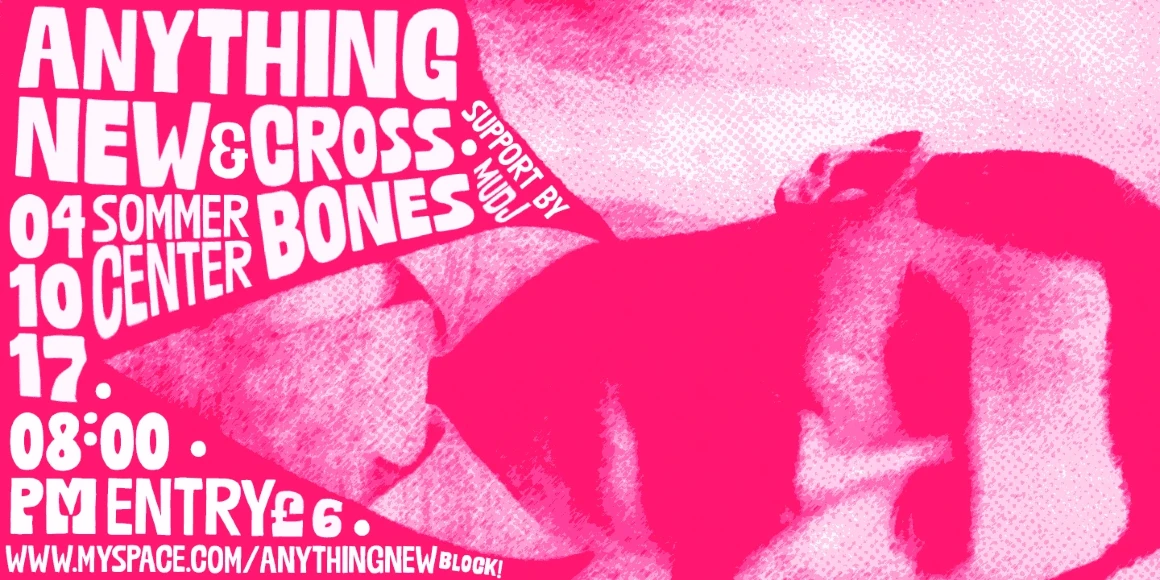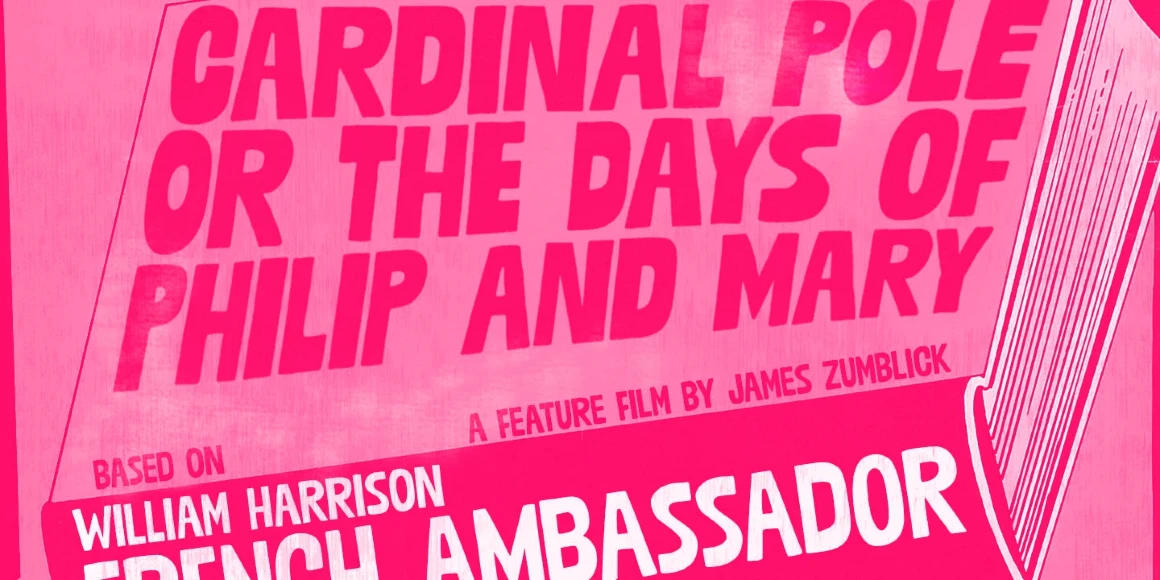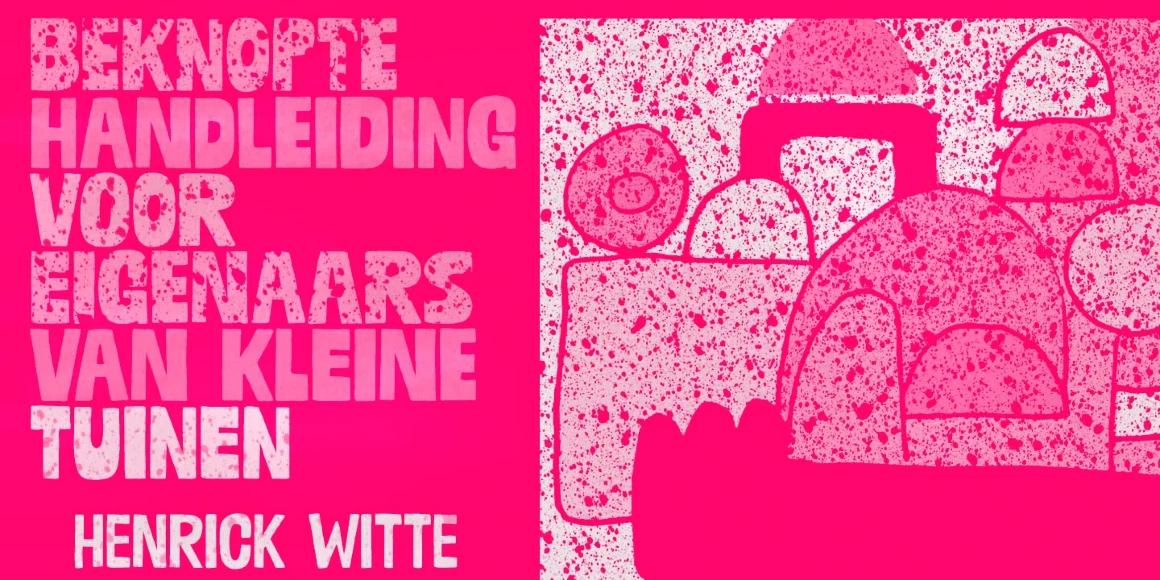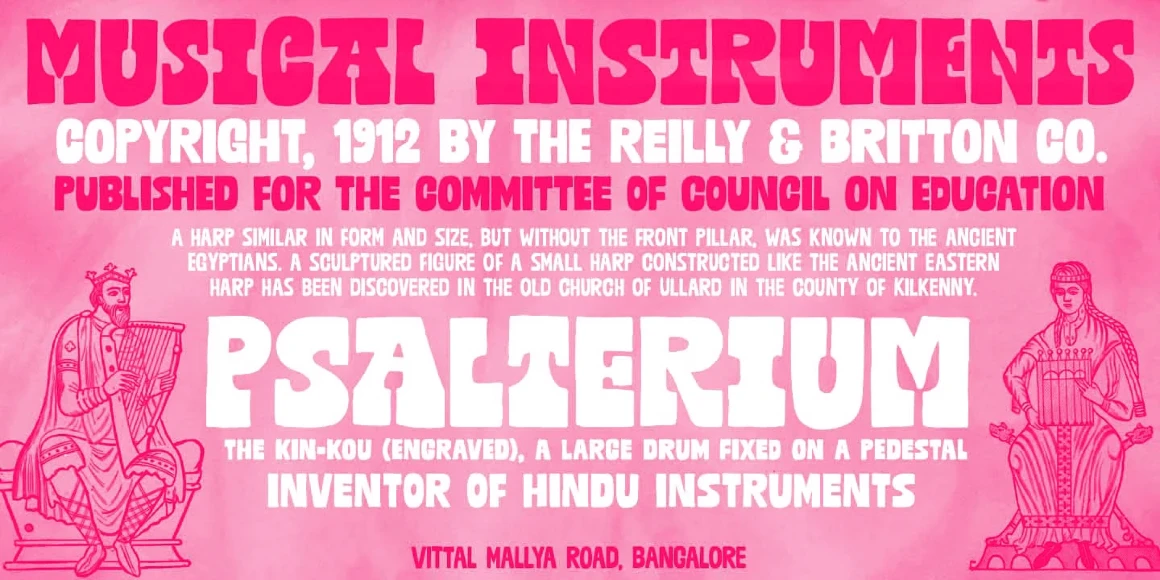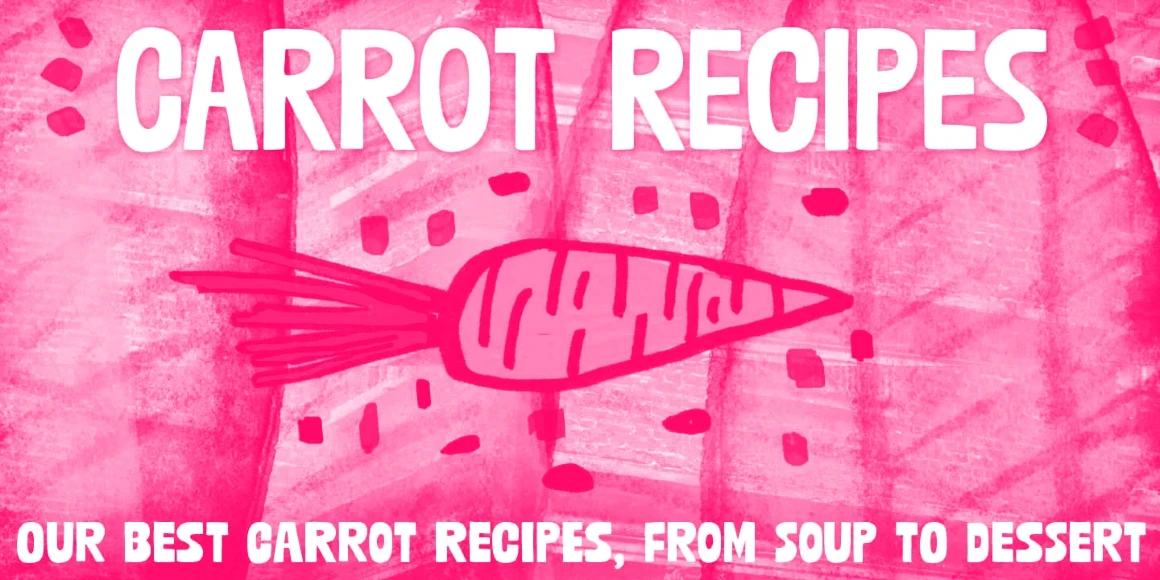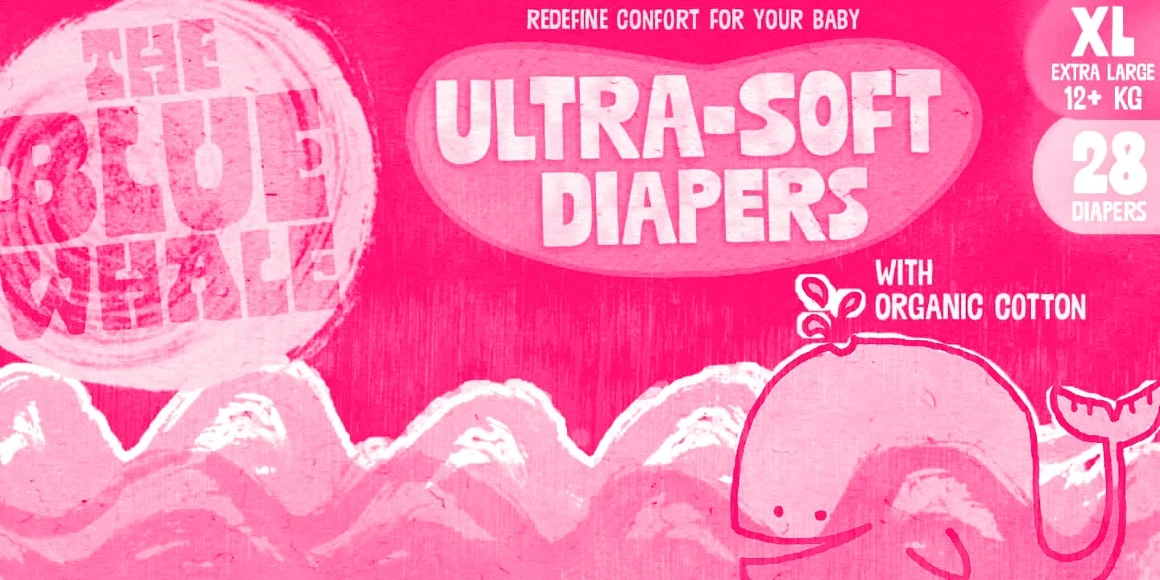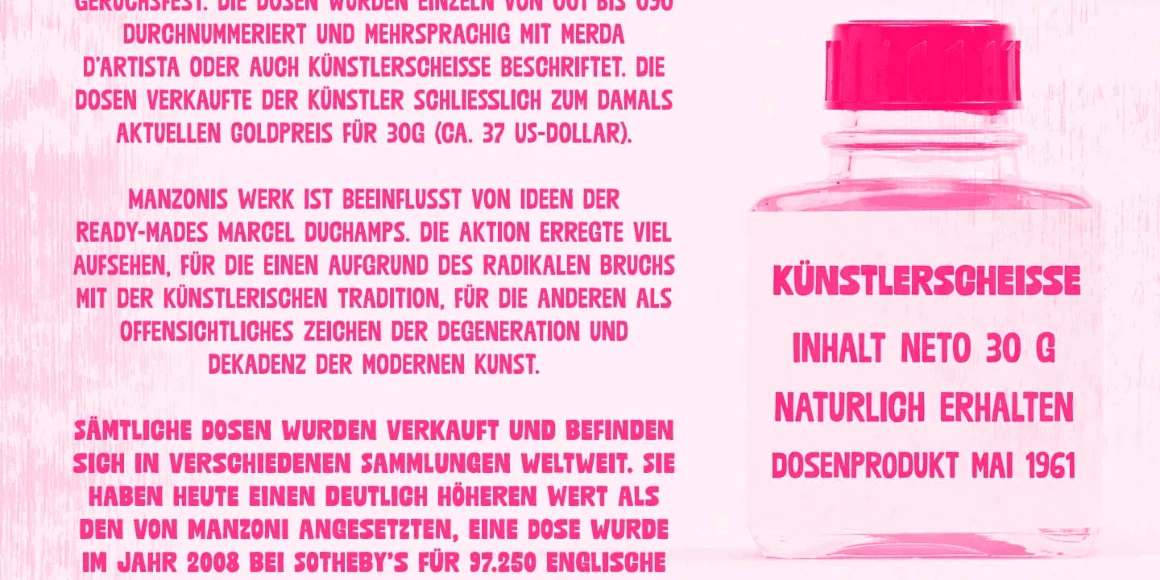
Mudstone Sans
Mudstone Sans Light
Mudstone Sans Black
Mudstone Sans is an all-caps sans serif with a bold, hand-drawn energy. Designed with authentic and lovely oddities and quirks — definitely created to get noticed! Its slightly irregular curves and sturdy letterforms lend a human touch, particularly when the alternates are used! Critically cool, seriously creative, dangerously unique. It’s a versatile pick for branding, packaging, and editorial work. Plus! It’s made to work hand-in-hand with Mudstone Serif!